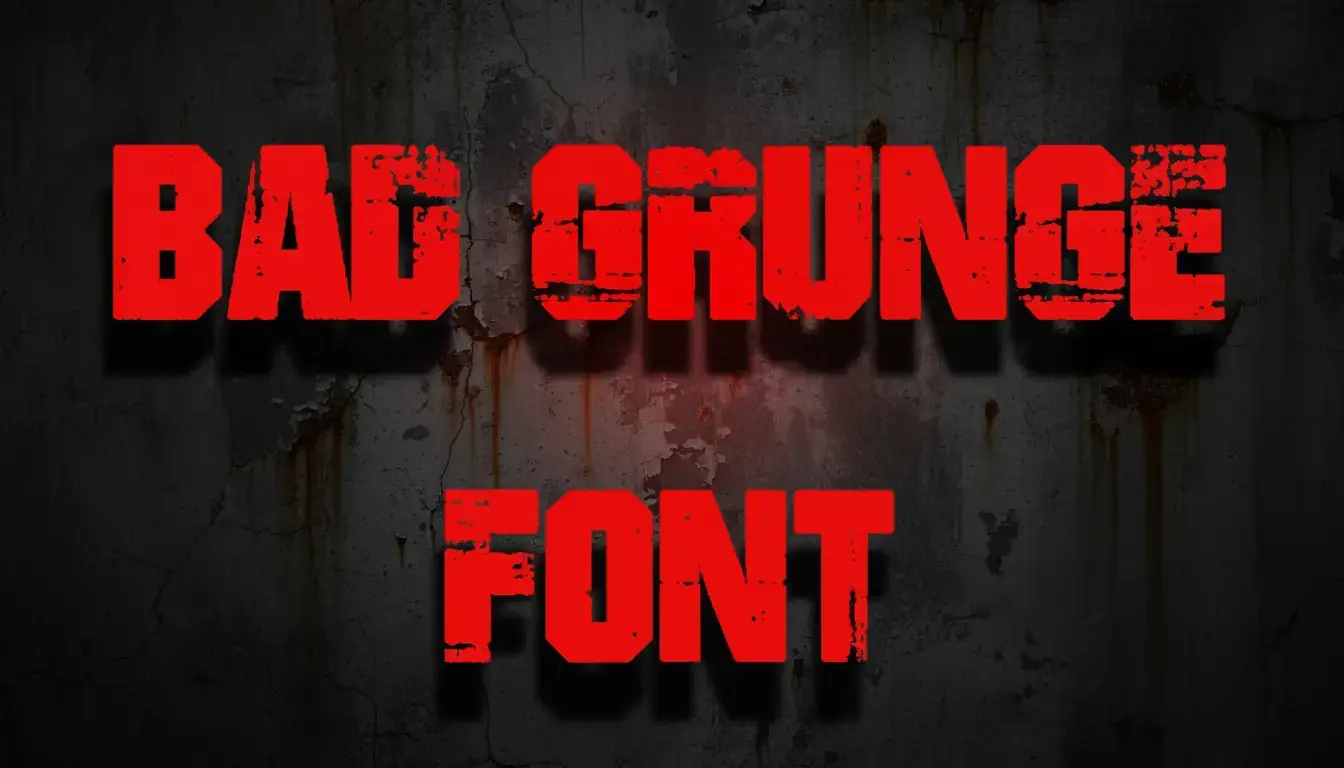
Bad Grunge Font
Bad Grunge
Bad Grunge is a fancy font. It's a decorative display font with plenty of personality, made to grab attention. It's a free download, and you can try it with your own text in the preview above first.
What You Can Type With Bad Grunge
With complete upper and lowercase letters and all ten digits, Bad Grunge is ready for real wording, not just a single headline. Common punctuation such as &, ! and ? is included as well. It doesn't include accented letters such as é or ñ, which makes it an English-only font.
Where Bad Grunge Works Best
Designers usually reach for fonts like Bad Grunge when they're making posters, logos and eye-catching headlines. Use it for one standout word or headline and let simpler fonts handle the rest.
Does Bad Grunge support accented letters?
No. Bad Grunge has no accented letters such as é, ñ or ü, so it's best for English text.